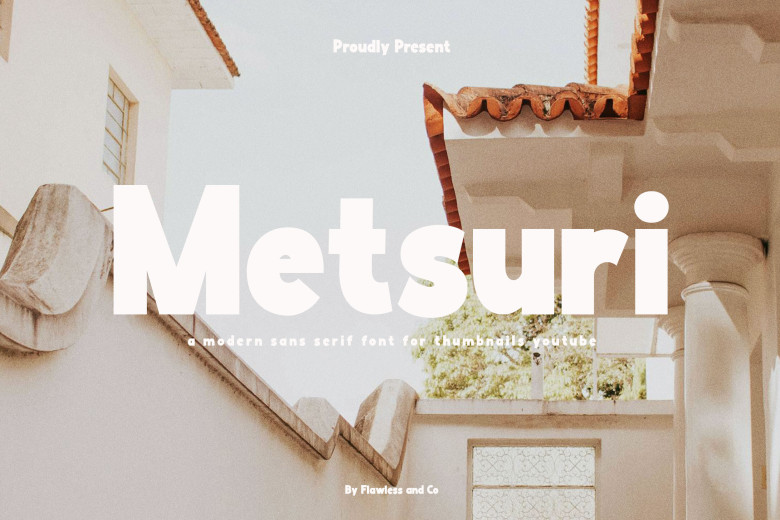
Metsuri Font
Let me present the new sans-serif font name Metsuri – the one that will give your YouTube thumbnails that extra pop. The established design style of Metsuri can be characterized as minimalist, all the lines are clear, and the structure of the site looks rather geometric – all this creates an exquisite image of a modernist business-card channel that will suit any YouTuber.
This font is appropriate when it comes to the creation of any graphics including the branding images, Thumbnails YouTube, video contents, print, business cards, logos, posters, t-shirts, photography, and quotes among others.
Metsuri Sans Serif Font